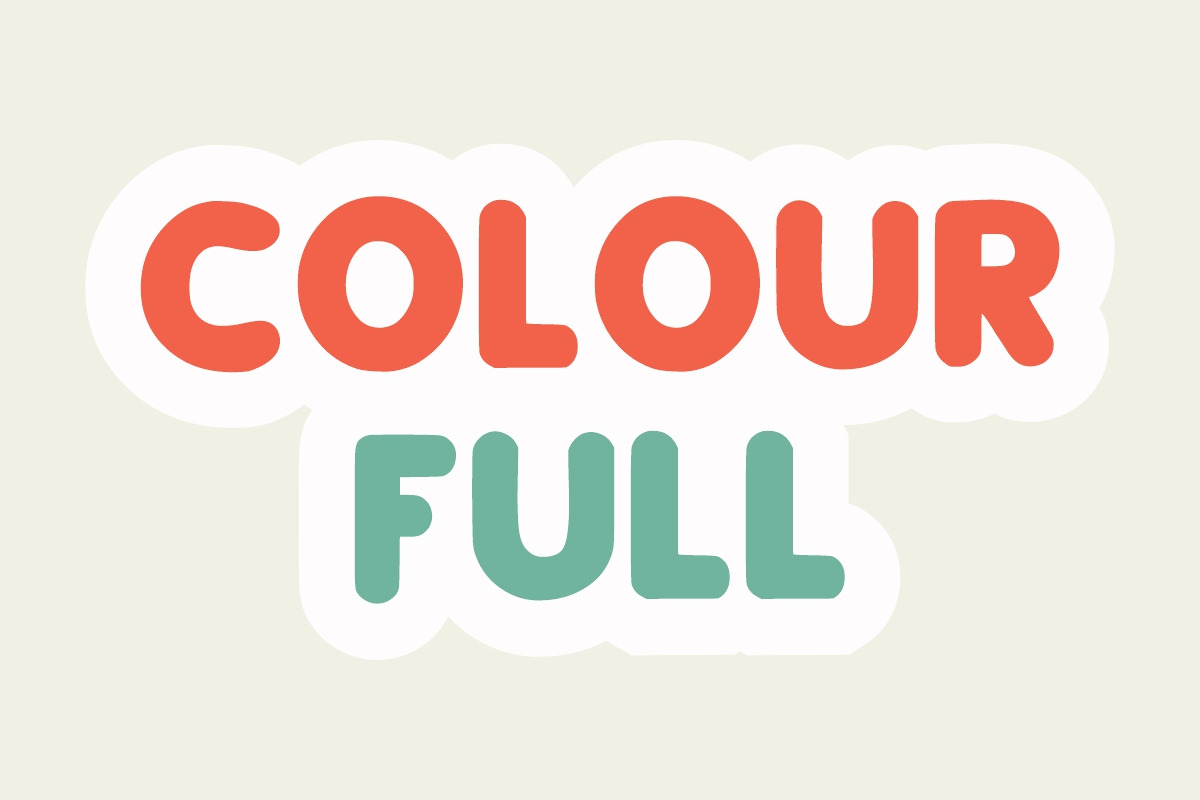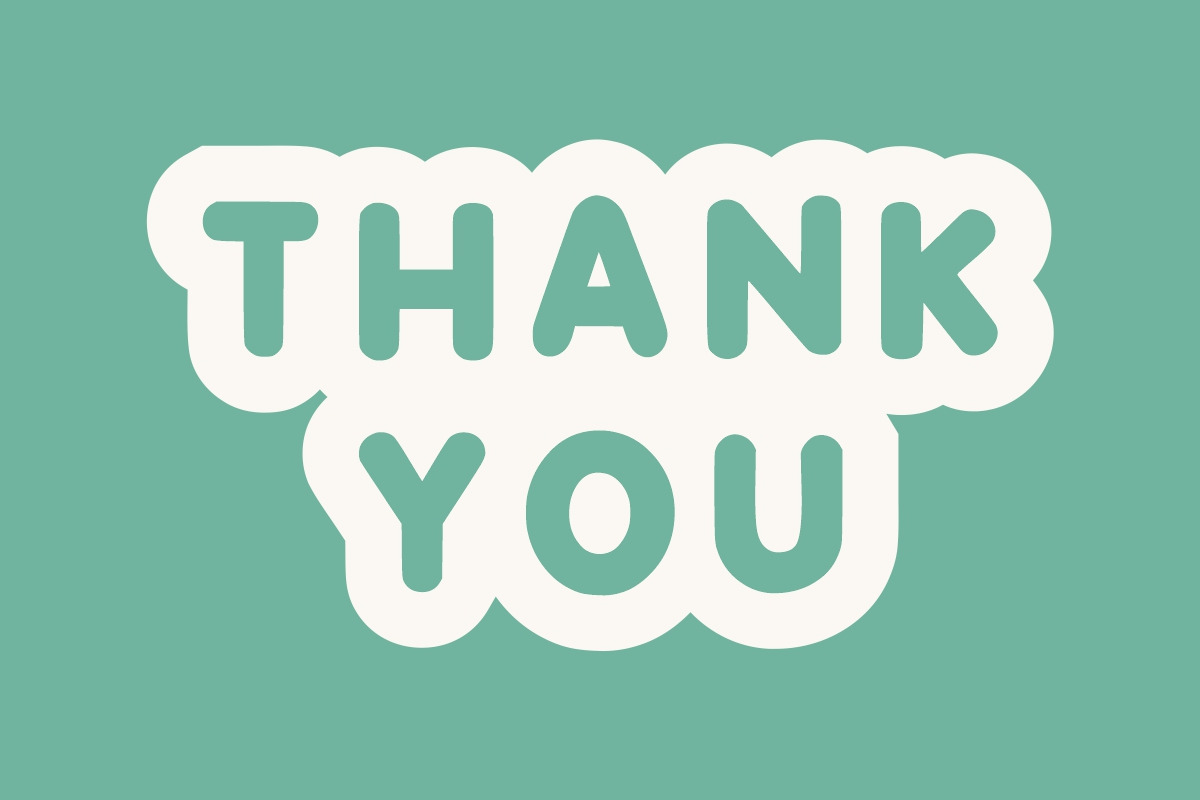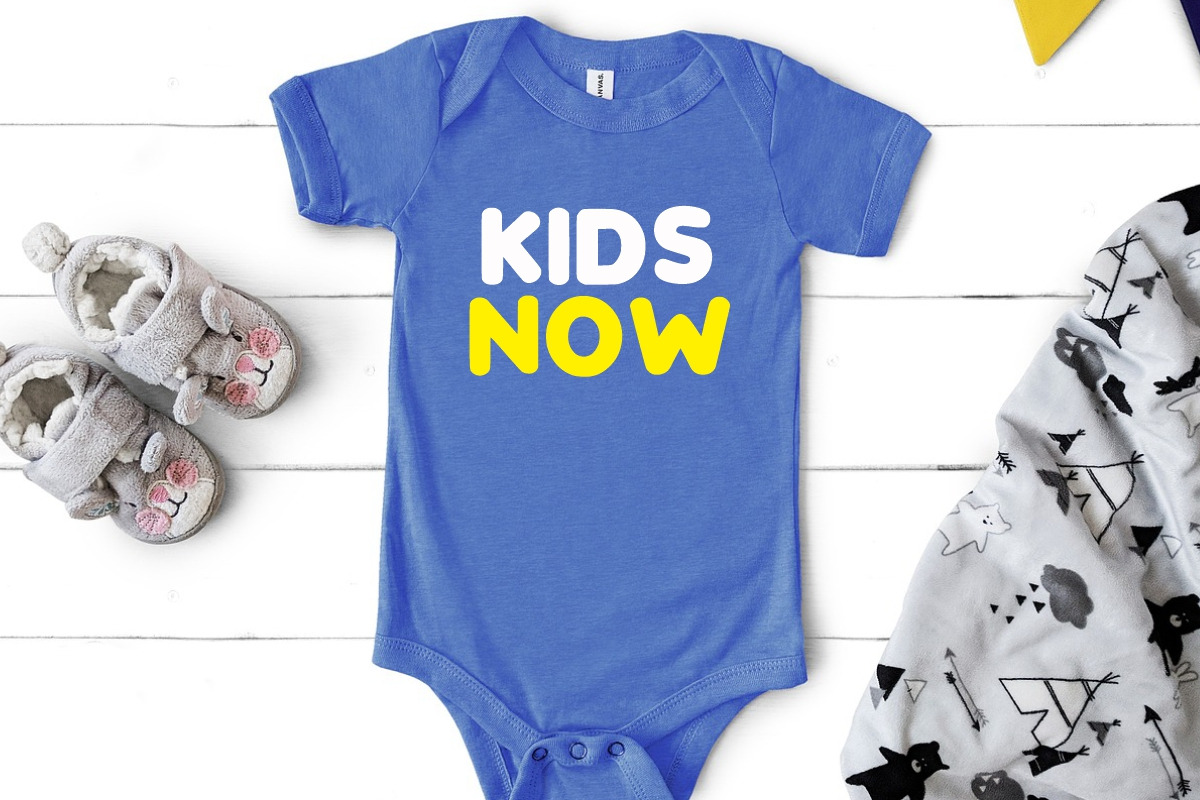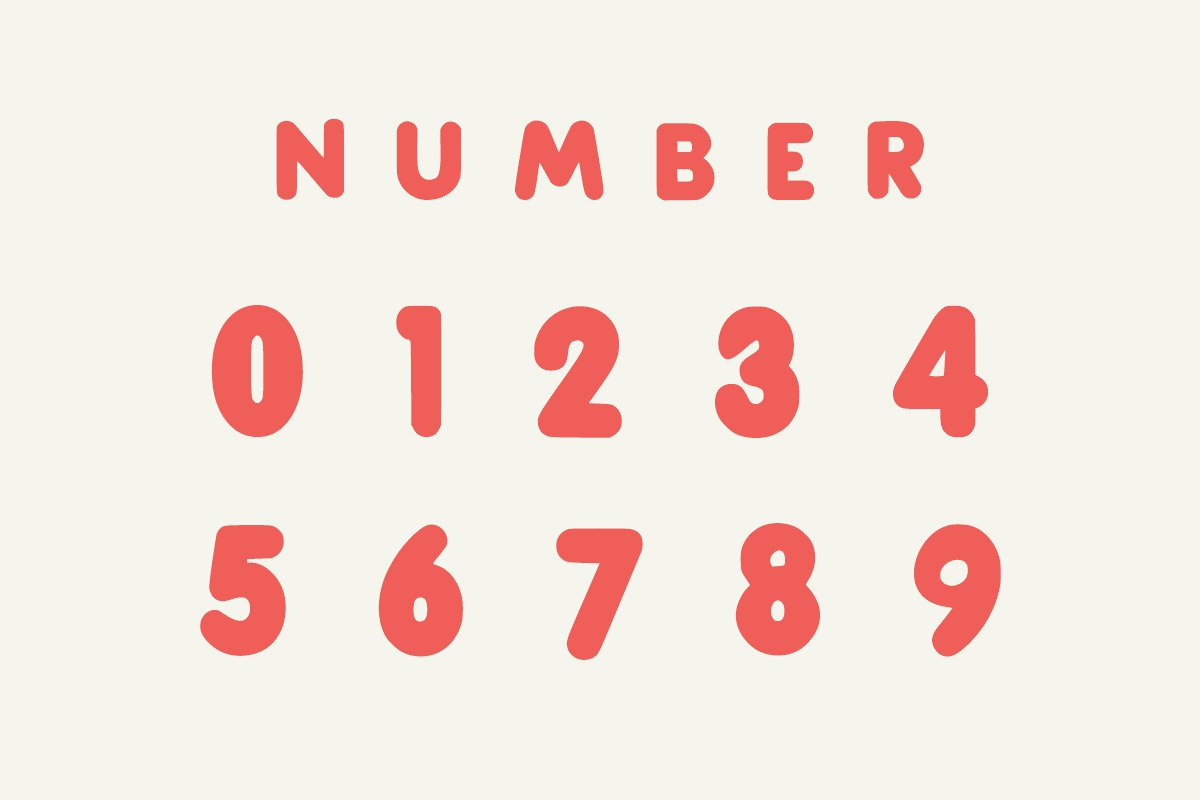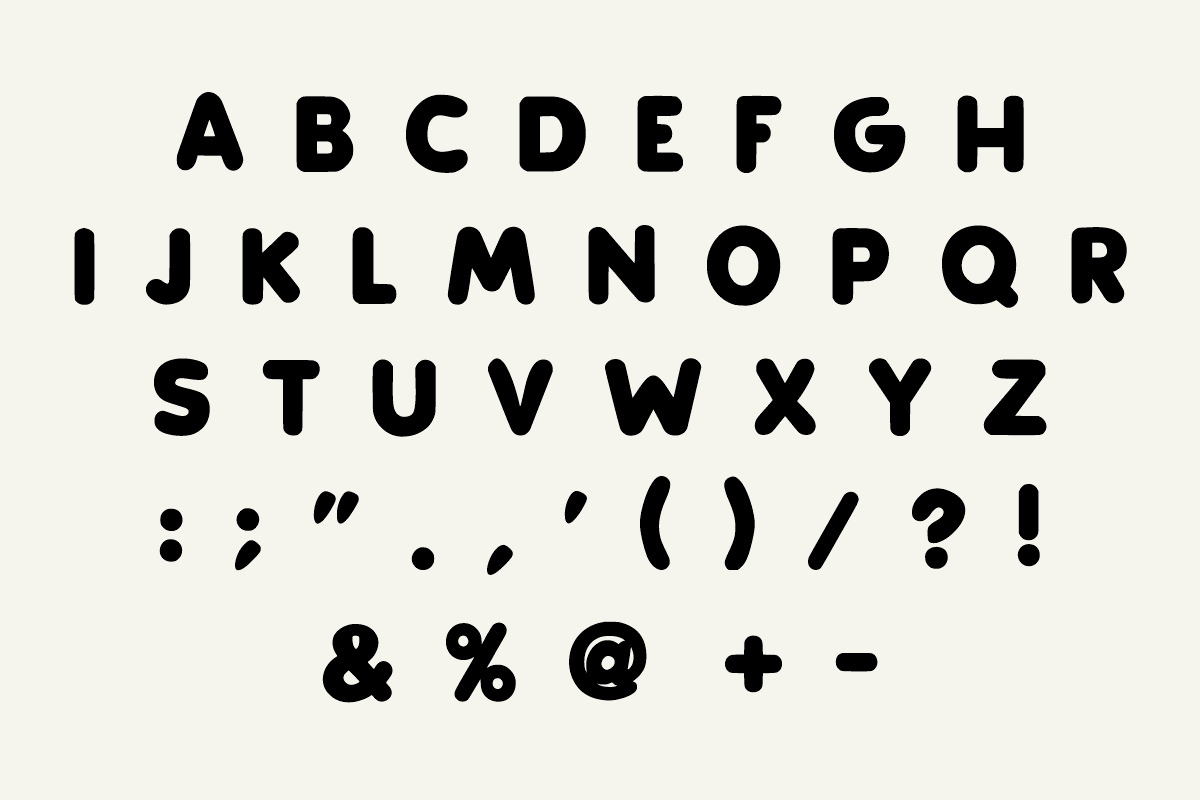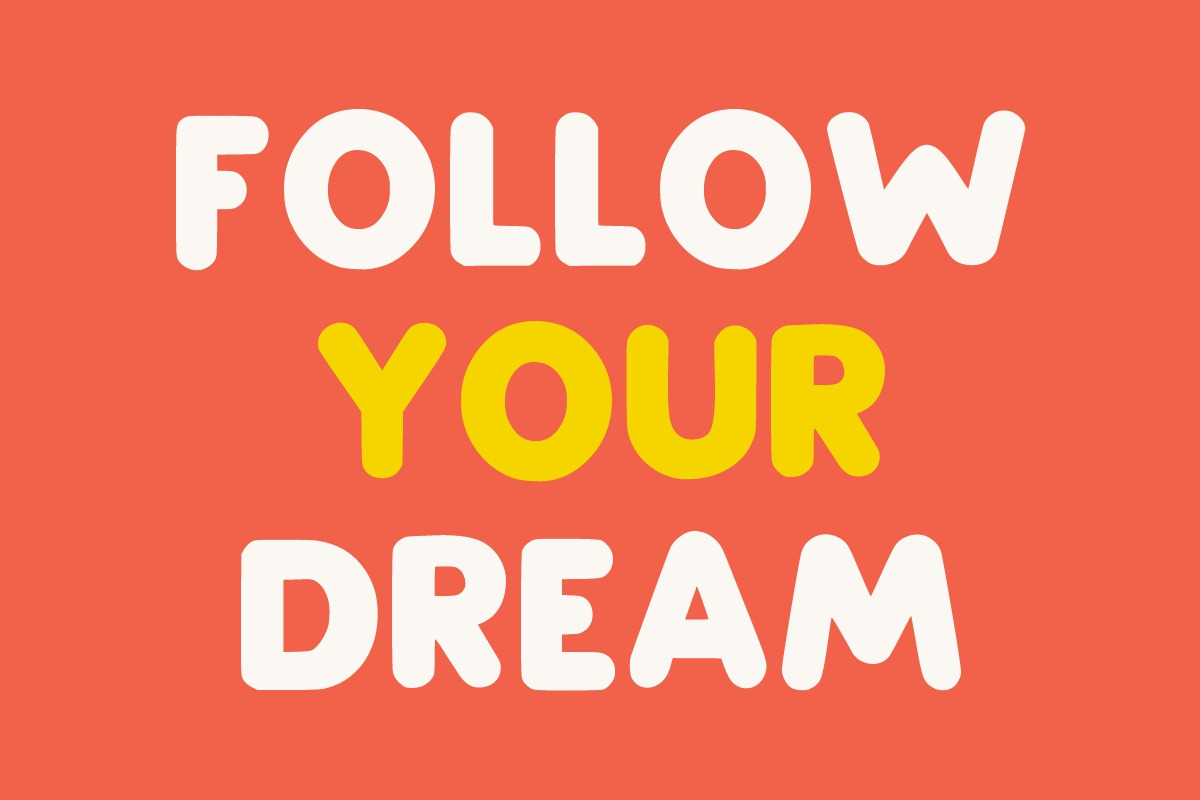
Love Hopes
Love Hopes is a Playfull font, colorful, Bold, and childish, easy-to-read display font that conveys impeccable friendliness. Whether you’re using it for crafts, logo, digital design, presentations, or greeting cards, this font has the potential to become your favorite go-to font.